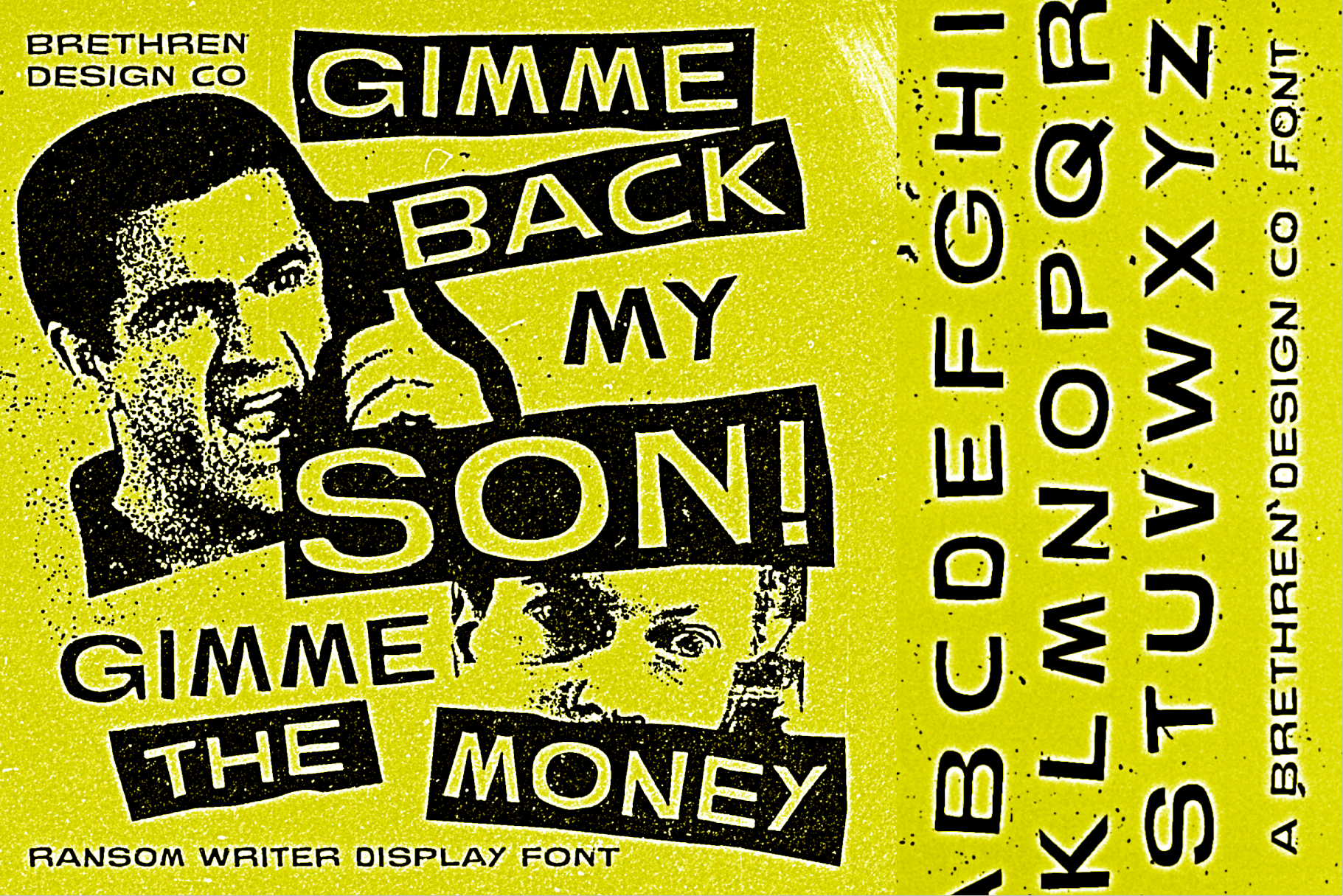
Ransom Writer Display Font
A wonky cut-out inspired font with a punk rock vibe. Design something rad and break out the stapler and post some flyers. Ransom Writer includes alt letters for uppercase and lowercase, numbers and punctuation.